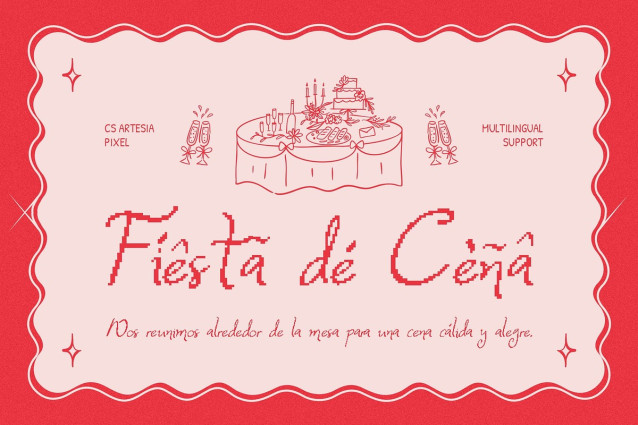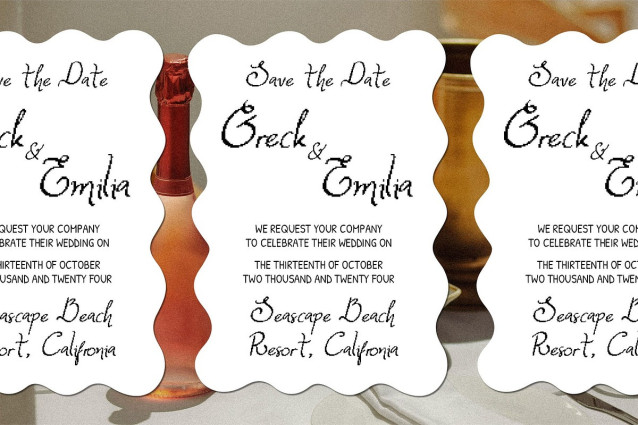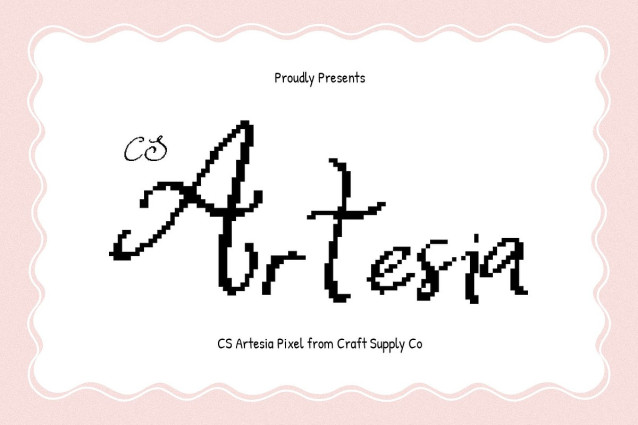
CS Artesia Pixel Font
CS Artesia Pixel Font – This is a whimsical script font designed to bring joy and charm to any creative project. Its flowing, playful curves create a sense of lightheartedness, making text feel lively and engaging. The whimsical character of the font ensures it stands out, ideal for projects that want to radiate warmth.
Pixel Detailing for Retro Flair Adding to its charm, this font features pixel-styled characters that inject retro energy into the design. This combination of organic, script-like flow and pixelated texture creates a unique duality bridging the artistry of hand-drawn forms with the nostalgic appeal of 8-bit design. The pixel effect makes the font not only fun but also distinctly memorable.
Perfect for Invitations and Celebrations Designed with festivity in mind, this font is perfect for wedding invitations, party stationery, and celebration-themed designs. Its cheerful curves paired with retro digital texture add a playful twist, ensuring your message feels both personal and creative. Whether in print or digital form, it transforms text into an energetic visual centerpiece.
Versatility in Creative Branding Beyond invitations, this font also works beautifully for colorful posters, editorial layouts, and branding that seeks a fun and imaginative identity. The font blends elegance with playfulness, making it versatile for projects that want to balance sophistication with vibrant artistic expression.